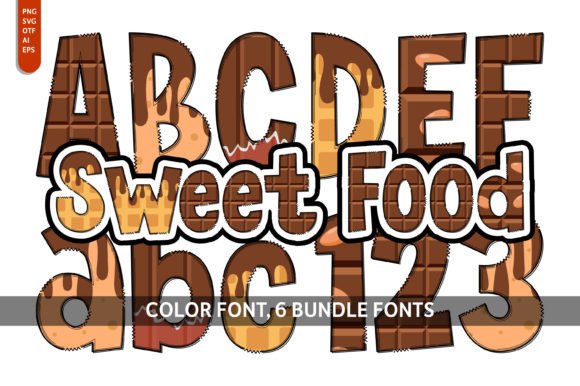
Journey into a world of sweetness and delight with the Sweet Food Bundle Font, a captivating collection of dessert-themed color fonts that will tantalize your senses and bring a touch of delectable joy to your creative projects.
Picture this: a world where your designs are transformed into a delectable feast for the eyes, where every letter dances gracefully like a swirl of frosting on a freshly baked cupcake. The Sweet Food Bundle Font is your culinary companion, ready to whip up a visual masterpiece that will leave your viewers craving more.
Each font in this collection is a confectionery masterpiece, crafted with vibrant colors and playful details that evoke the irresistible charm of your favorite desserts. From the luscious swirls of ice cream to the delicate drizzle of chocolate, every stroke of the pen or click of the mouse becomes an artistic pastry, ready to satisfy your creative appetite.
Unlock the endless possibilities of the Sweet Food Bundle Font and let your imagination run wild. Create branding materials that burst with flavor, party invitations that promise a sugary celebration, menu designs that entice the taste buds, and social media graphics that will make your followers drool.
Indulge in a sensory experience like no other as you witness your designs transform into a dessert lover's paradise. The Sweet Food Bundle Font is the secret ingredient that will elevate your projects to new heights of creativity, leaving your audience with a lingering taste of visual delight.
So, embark on a culinary adventure with the Sweet Food Bundle Font, and let your designs become the talk of the town. Its vibrant colors and delectable details will leave your audience hungry for more, making it the perfect choice for any project that seeks to bring a smile to your viewers' faces.